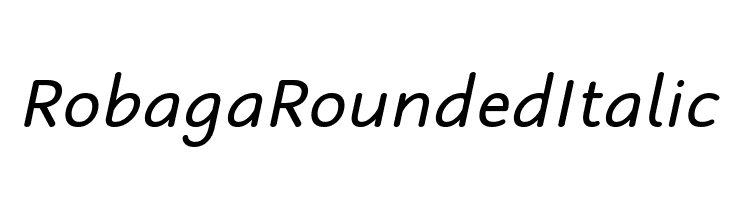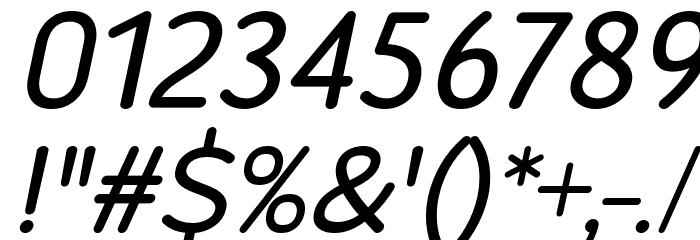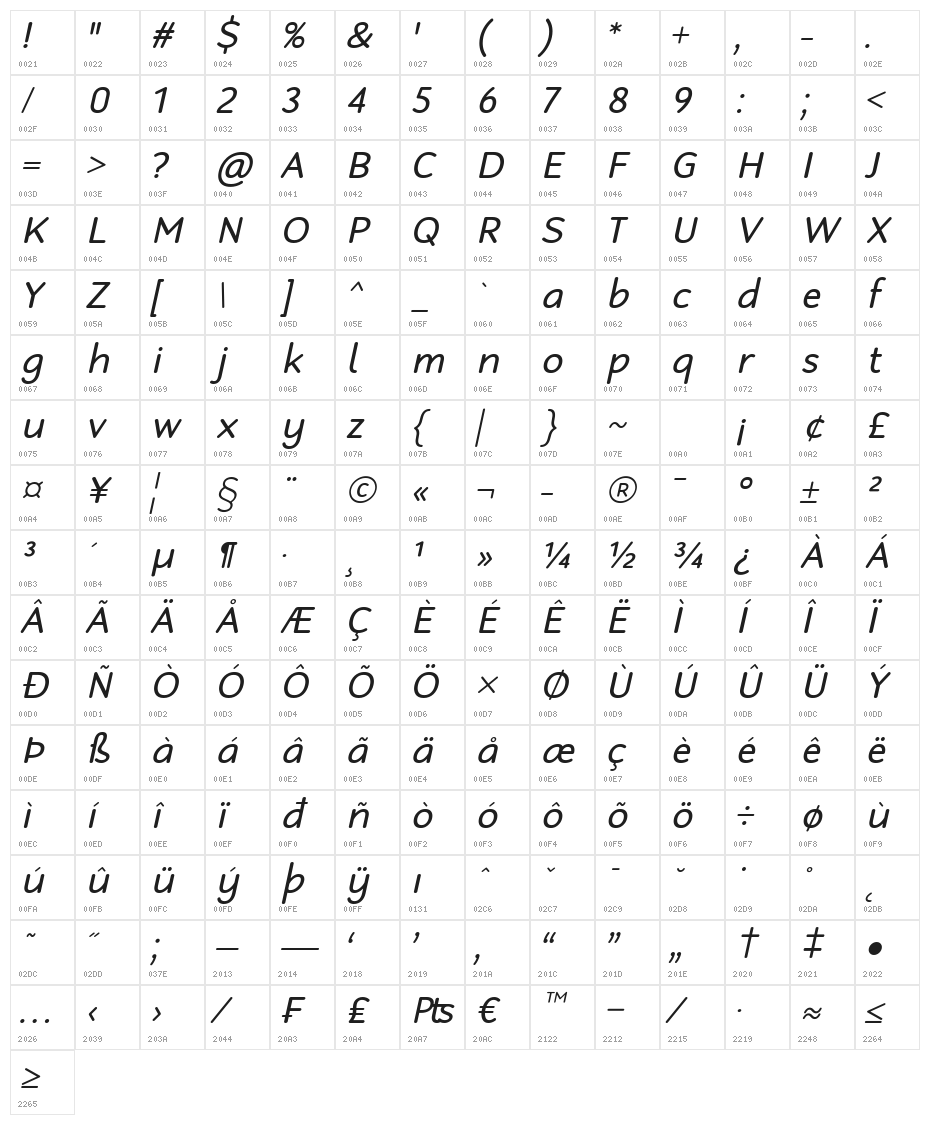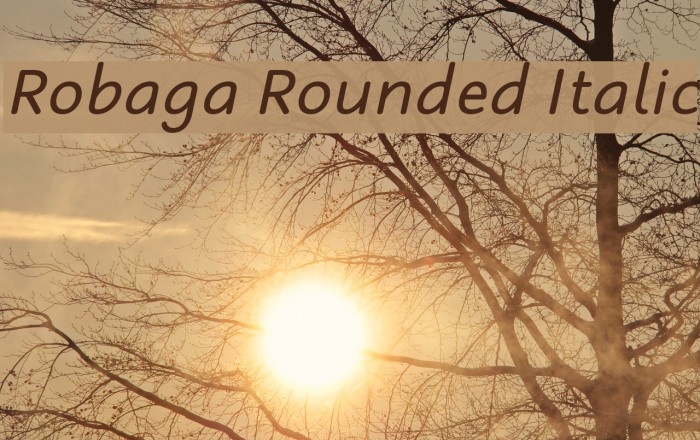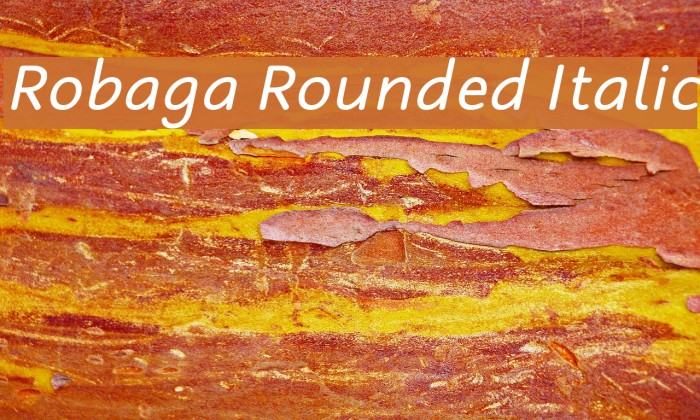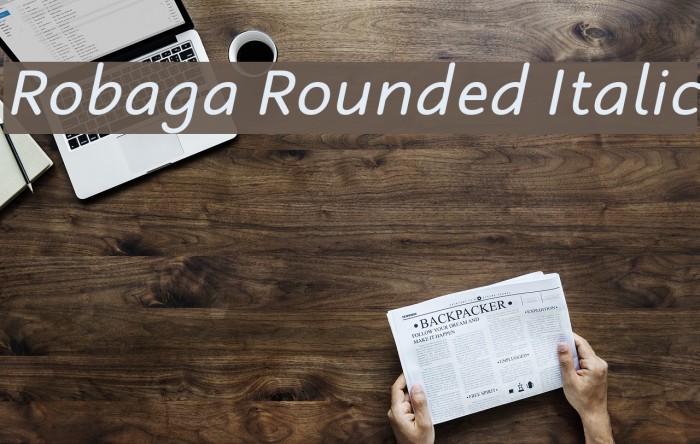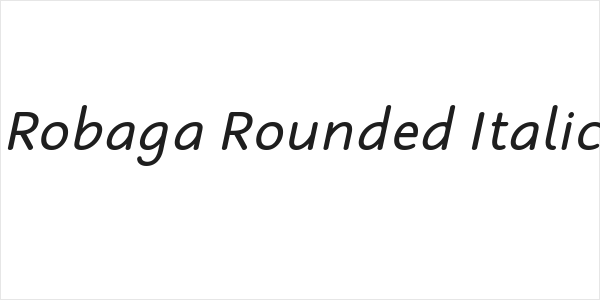
Robaga Rounded Italic Font
Robaga Rounded Italic Description
This font features a smooth, rounded style with a distinct italic slant, giving it a dynamic and fluid appearance. The characters are crafted with a consistent stroke width, contributing to a harmonious and balanced look. The uppercase letters are bold and prominent, while the lowercase letters maintain a friendly and approachable feel. The numerals are clear and easy to read, making them suitable for various applications. Special characters are well-integrated, maintaining the overall aesthetic of the font. This typeface is versatile, offering a modern yet casual vibe that can enhance a wide range of design projects.
| Use Case | Logos, Headlines, Digital content |
| Proposed Projects | Ideal for branding, advertising, packaging, and digital content where a modern and approachable look is desired. |